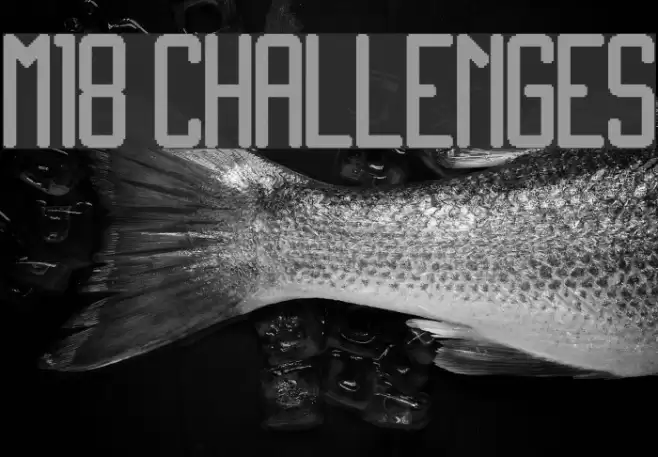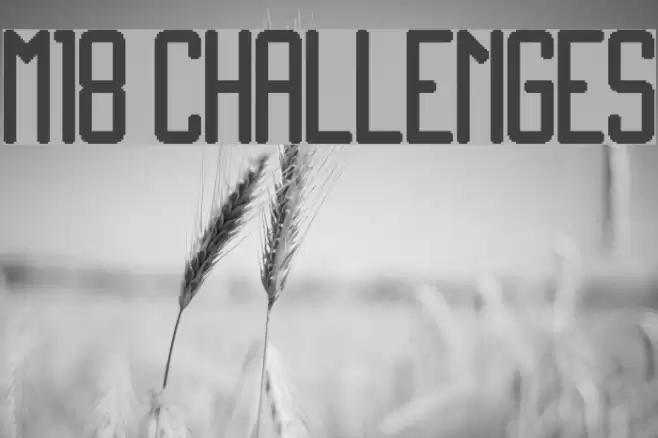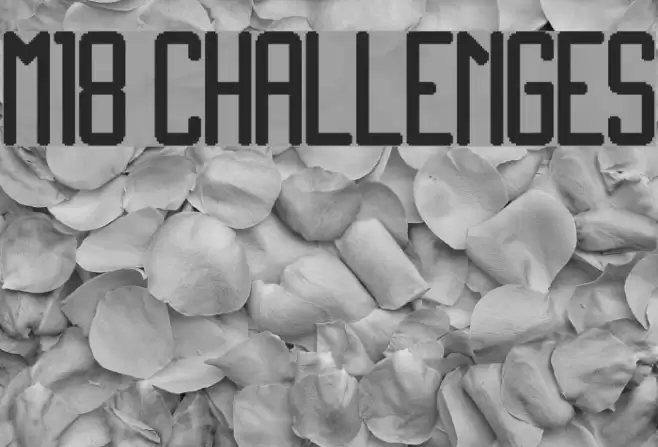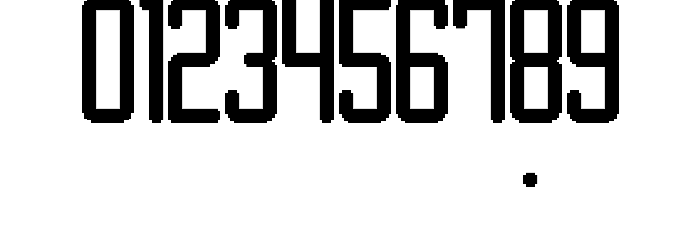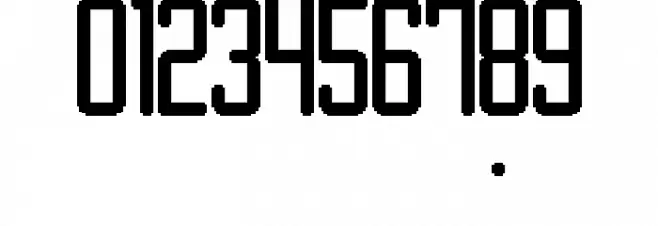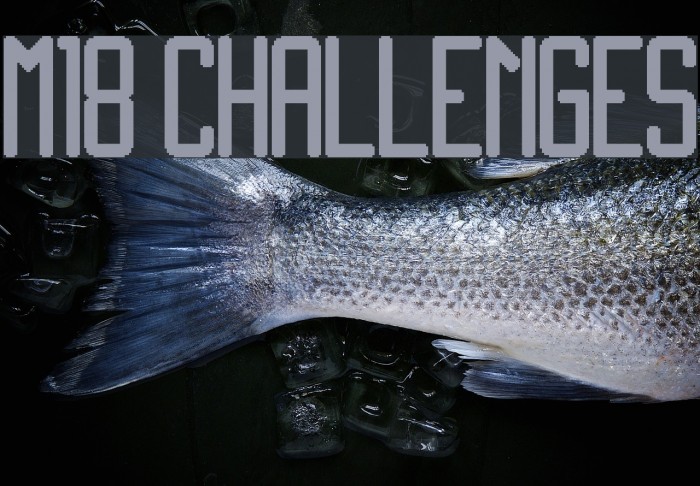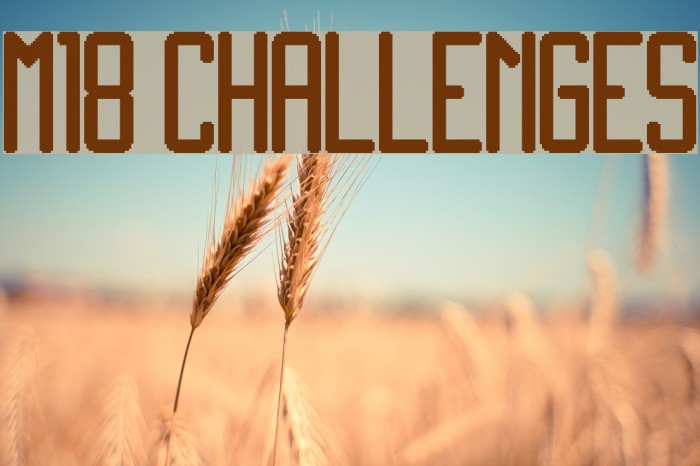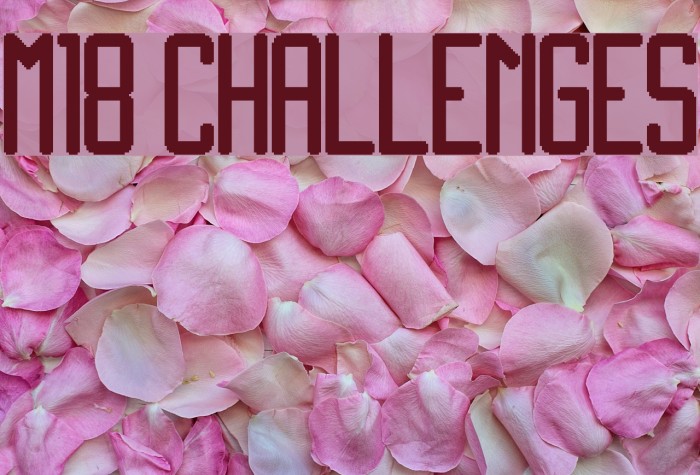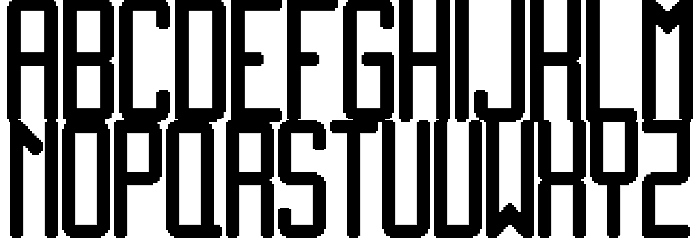
M18_CHALLENGES Font
M18_CHALLENGES Description
This font features a bold, geometric design with a distinctly modern and digital aesthetic. The characters are constructed with uniform stroke widths, creating a monospaced appearance that emphasizes clarity and precision. The uppercase and lowercase letters maintain a consistent height, contributing to a cohesive and structured look. The numerals and special characters follow the same design principles, ensuring uniformity across all glyphs. This font's style is reminiscent of digital displays or retro video game graphics, making it ideal for projects that require a futuristic or tech-inspired theme.
A bold, geometric font with a modern, digital aesthetic from Uncategorized fonts.
- Proposed Projects: Ideal for tech-themed designs, digital displays, video game graphics, and futuristic branding.
- Use Case: Logos, Digital displays, Tech-themed projects